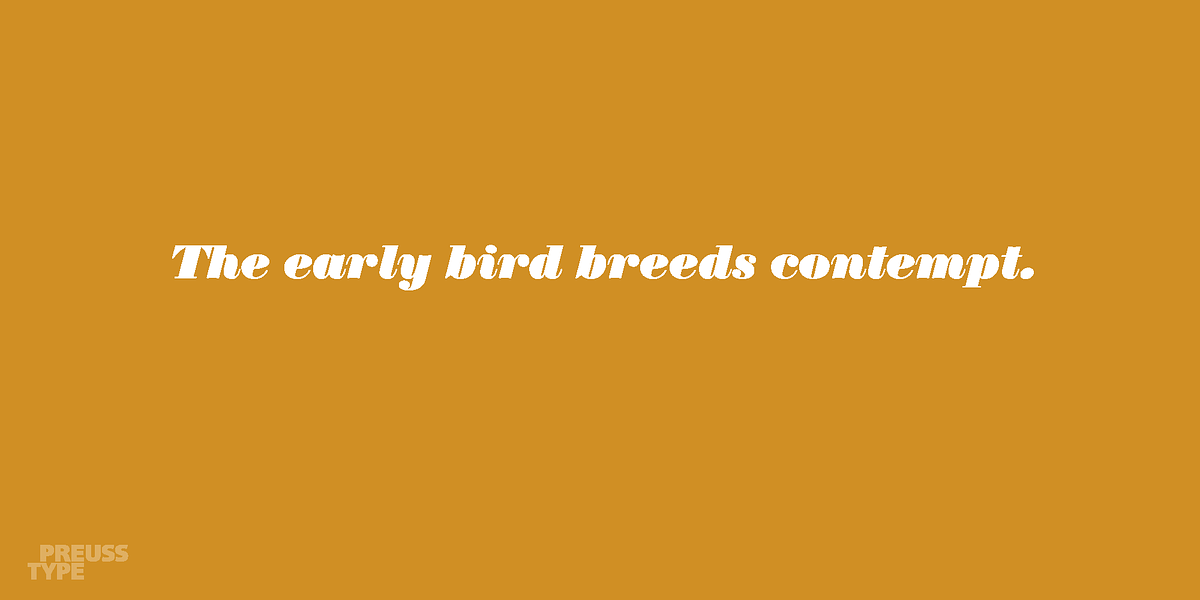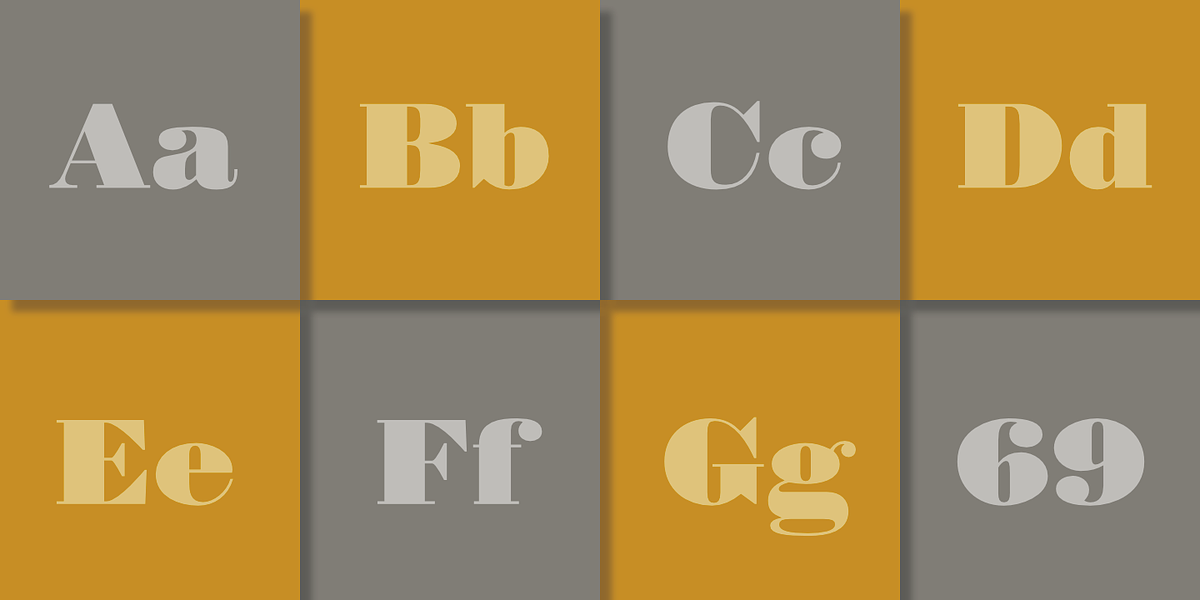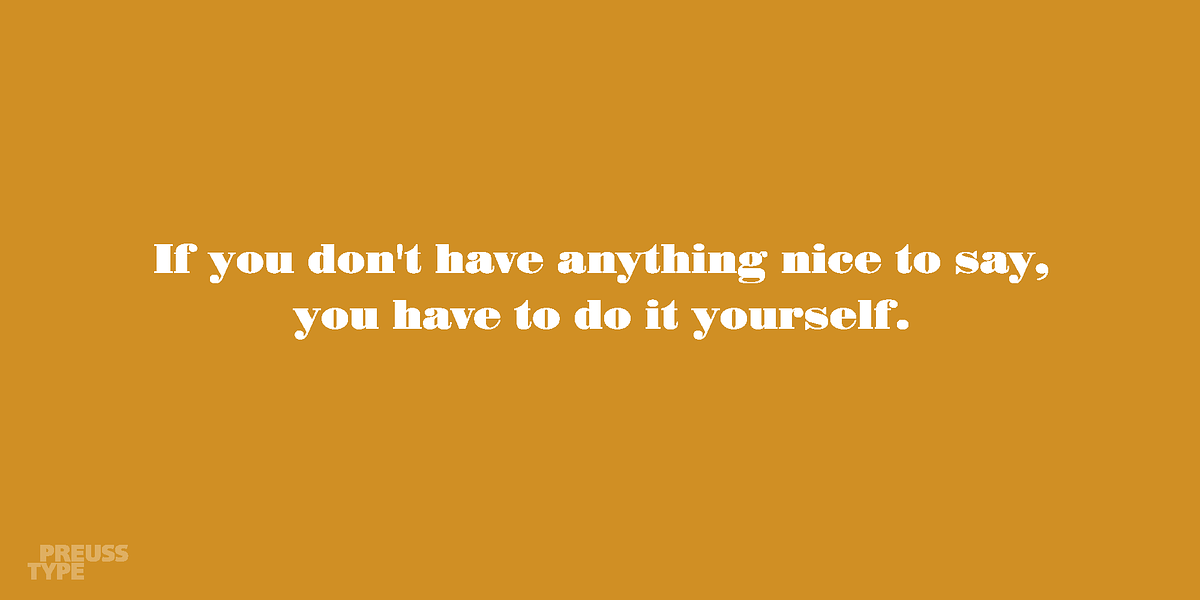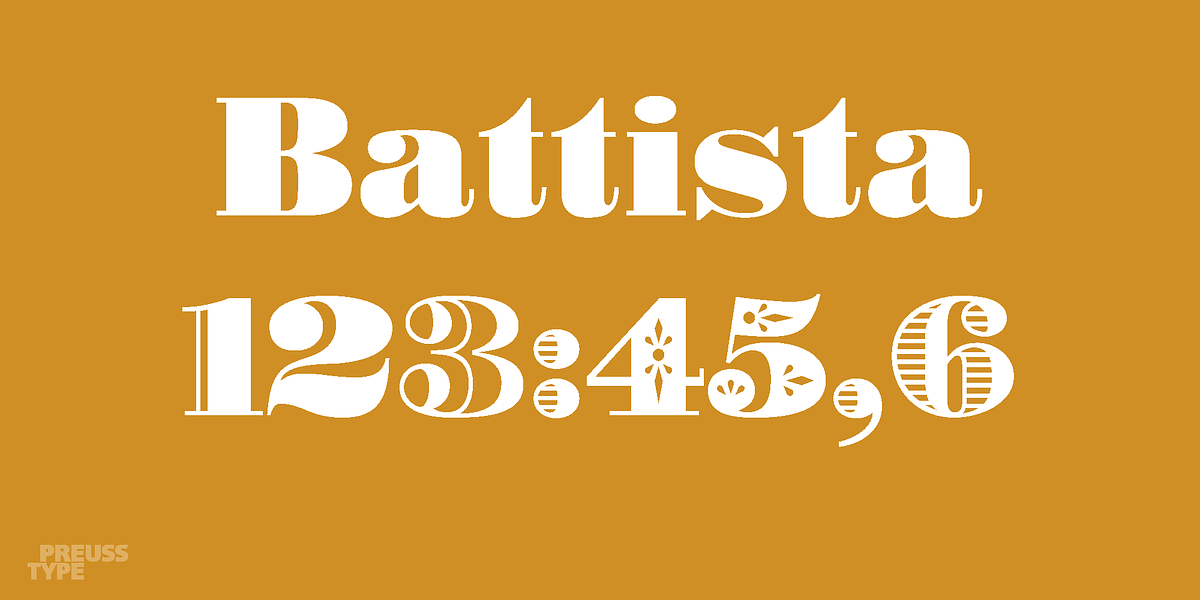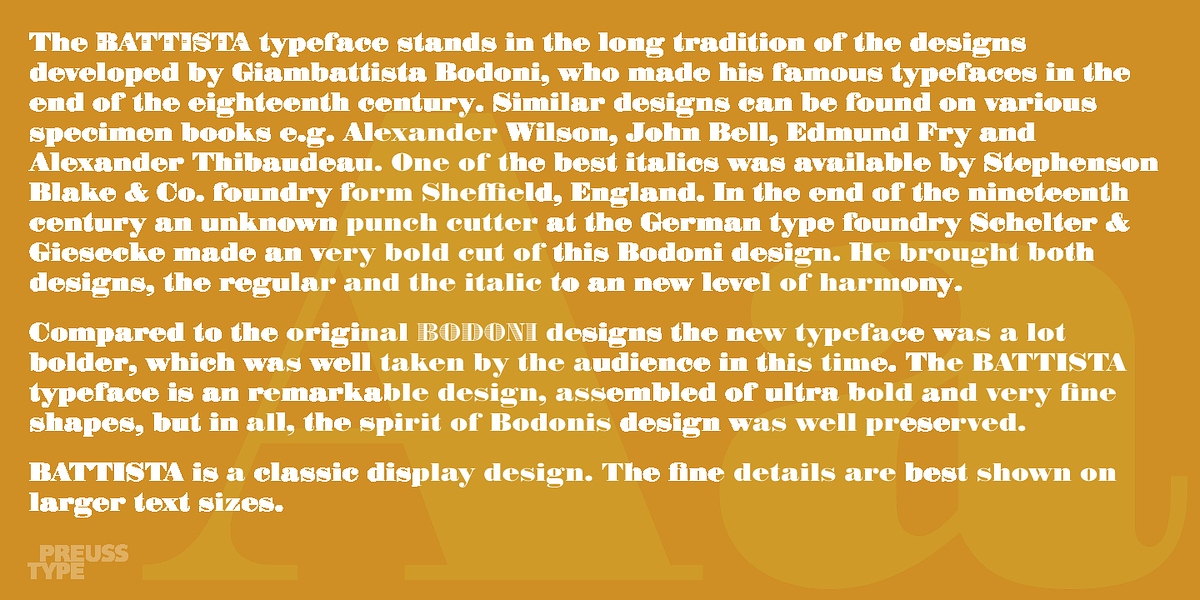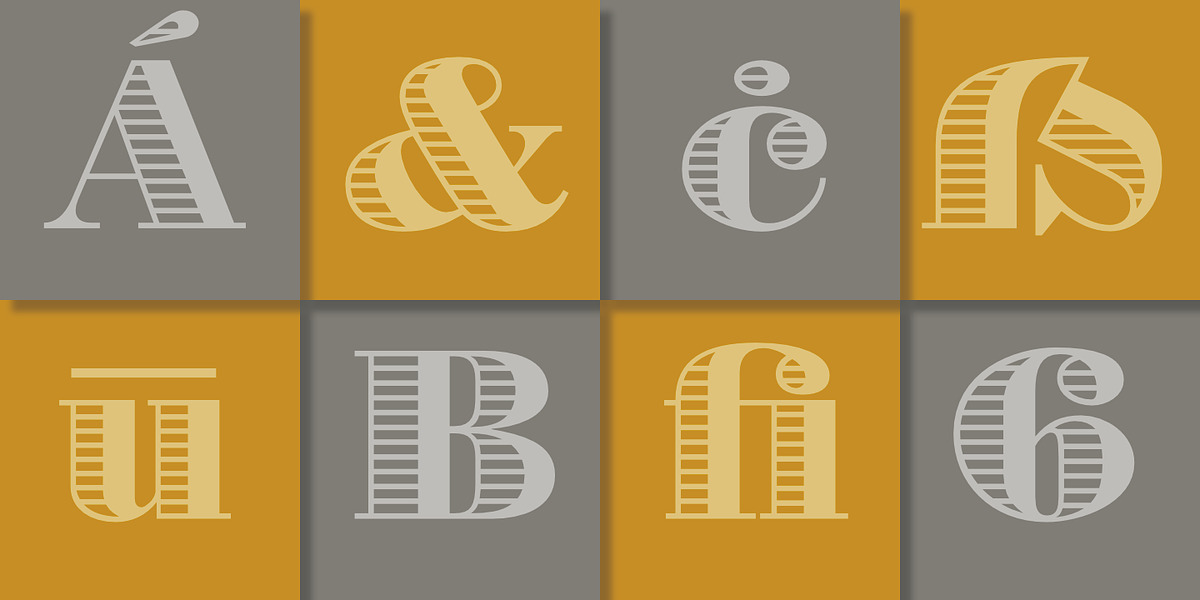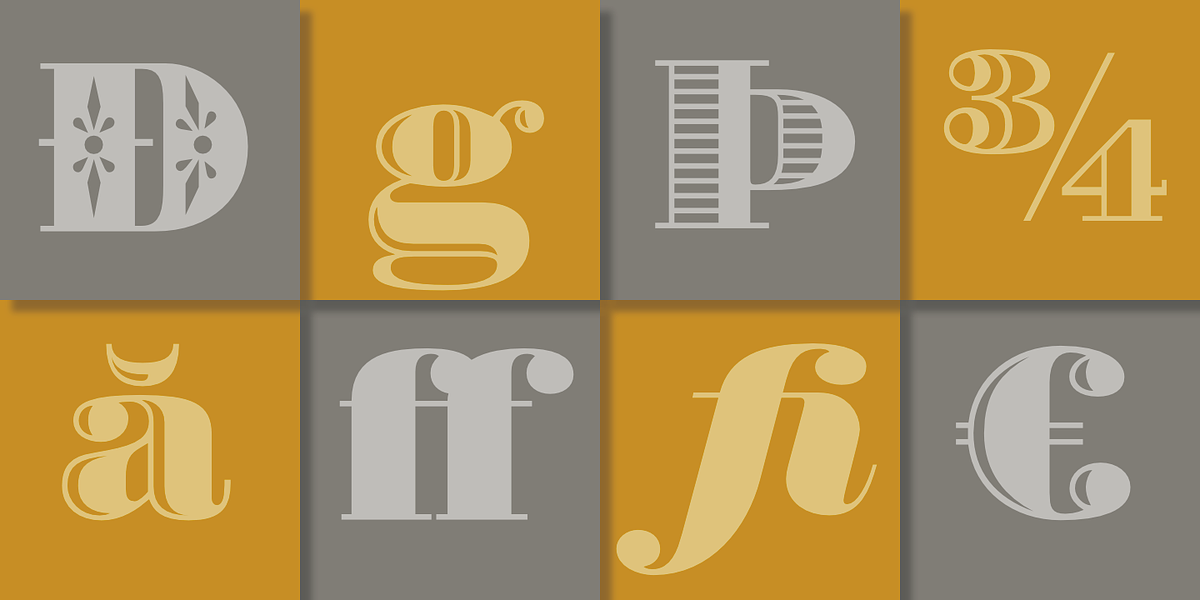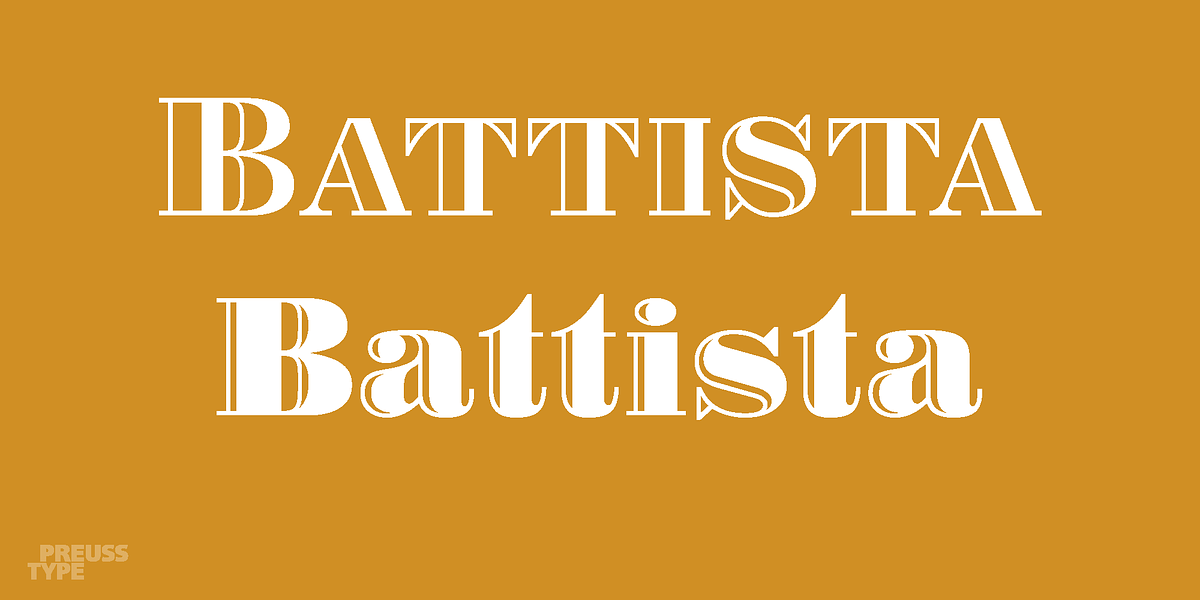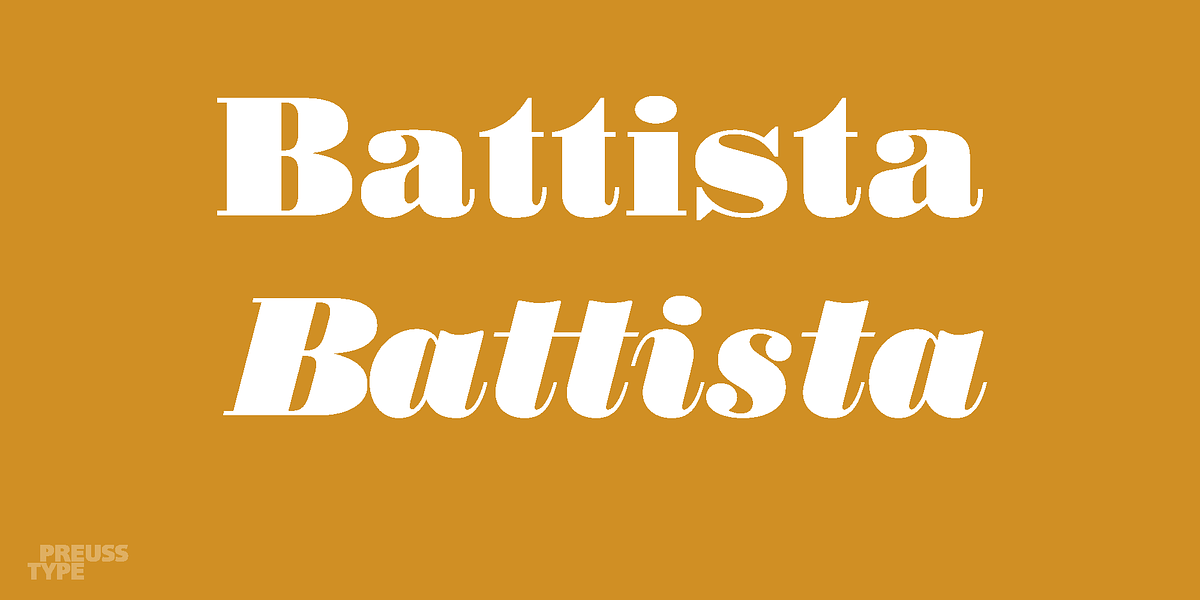
Battista
The BATTISTA typeface is a bold and intricate serif font inspired by the designs of Giambattista Bodoni. It features ultra-bold strokes with fine geometric details, ball terminals, and ornate embellishments. The typeface's design incorporates elements like inline and outline strokes, multilinear detailing, and potential for pattern creation. While drawing inspiration from classic Bodoni designs, BATTISTA elevates them to a new level of boldness and complexity. Its unique characteristics make it suitable for impactful displays and eye-catching posters.